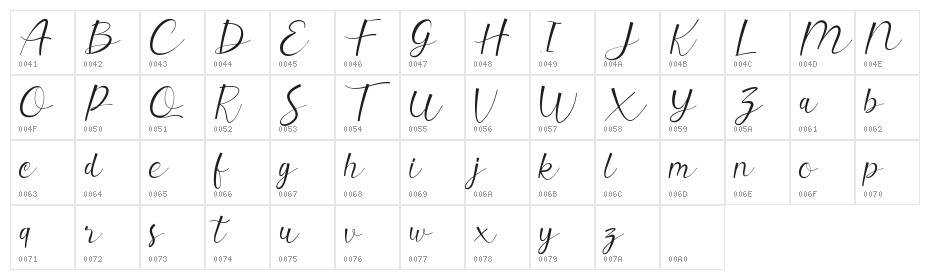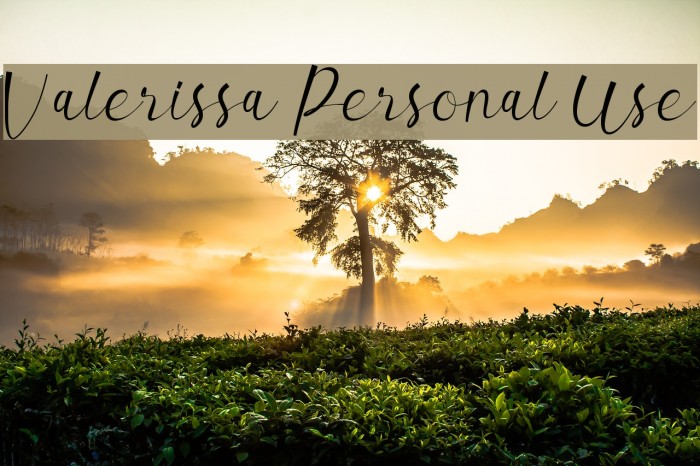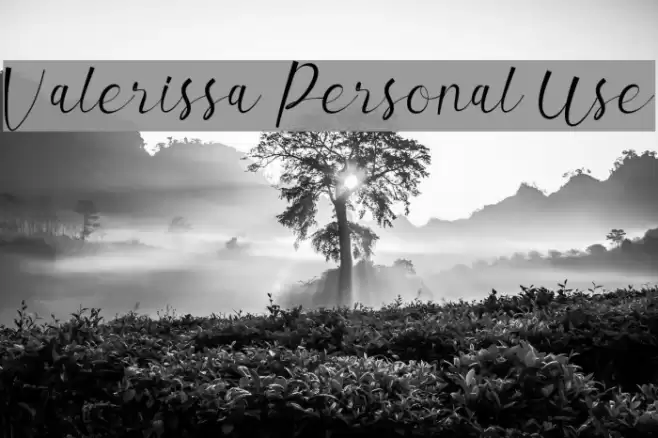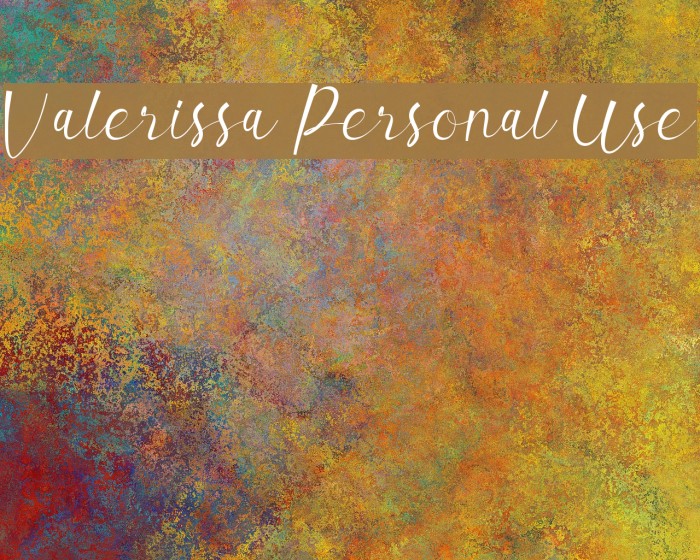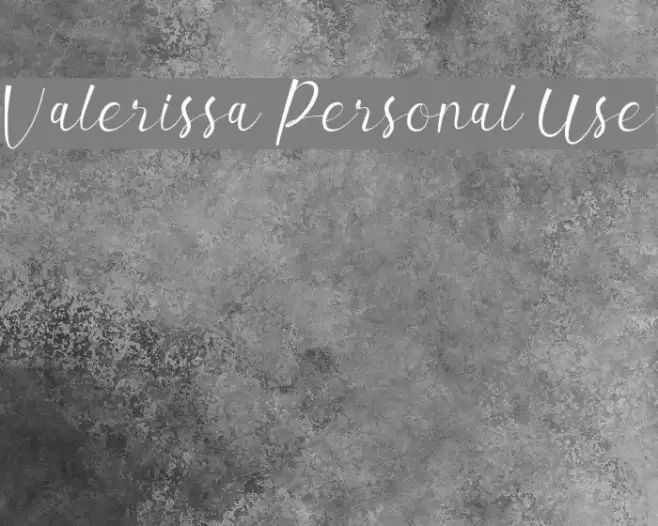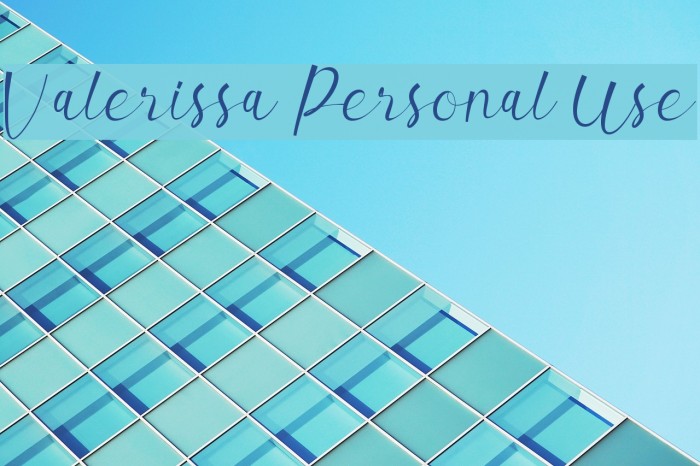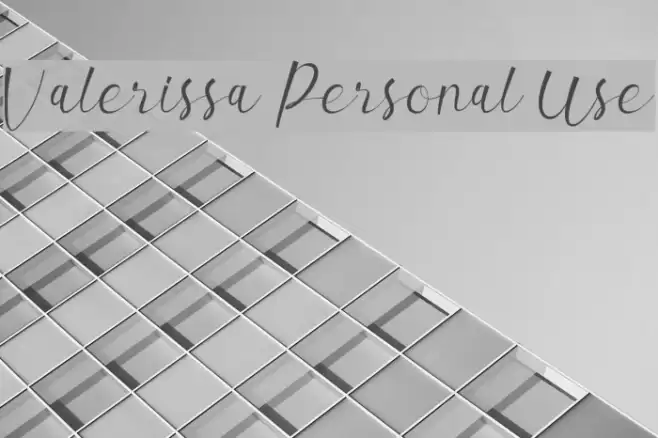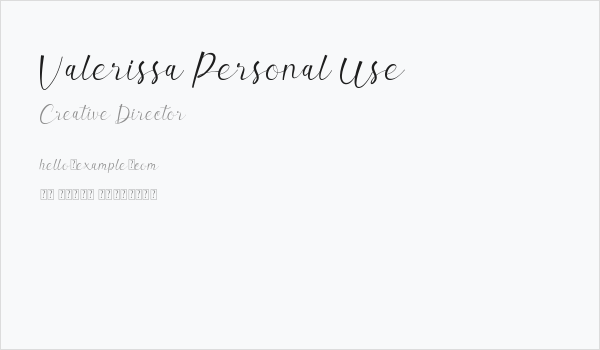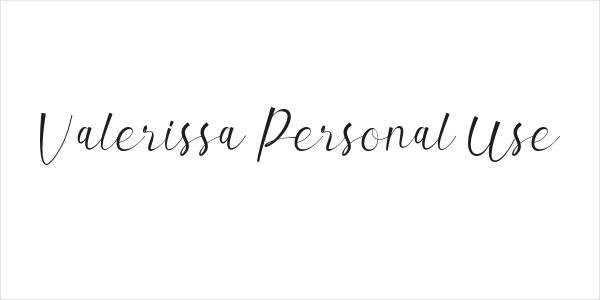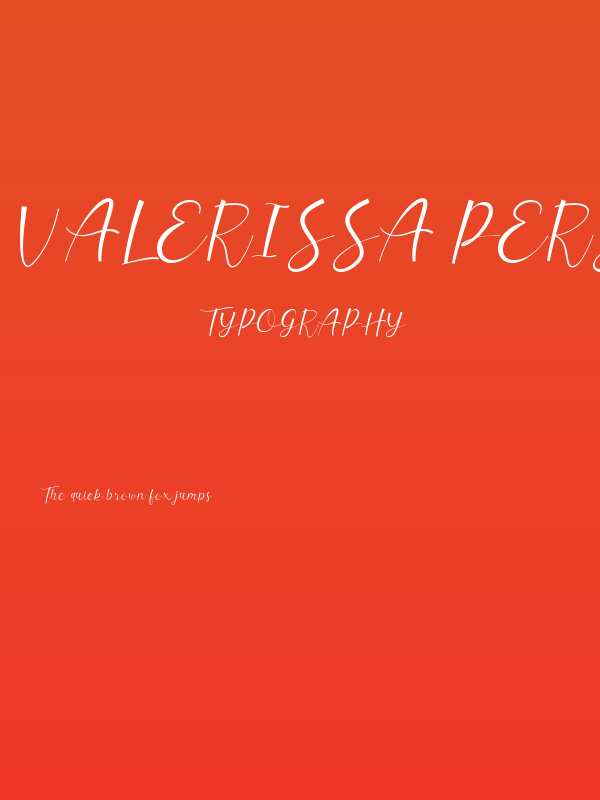
Valerissa Personal Use Font
Valerissa Personal Use Description
This font features a flowing, cursive style with elegant, sweeping strokes that give it a handwritten appearance. The letters are interconnected, creating a seamless and fluid look. The uppercase letters are slightly more ornate, with extended loops and flourishes, while the lowercase letters maintain a consistent, smooth flow. The overall design is both sophisticated and approachable, making it suitable for a variety of creative applications. The characters are well-balanced, with a slight slant that adds to the dynamic feel of the font. The spacing between characters is moderate, allowing for readability while maintaining the script's artistic flair.